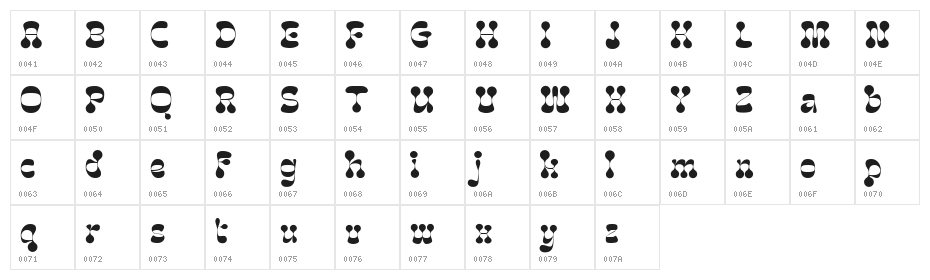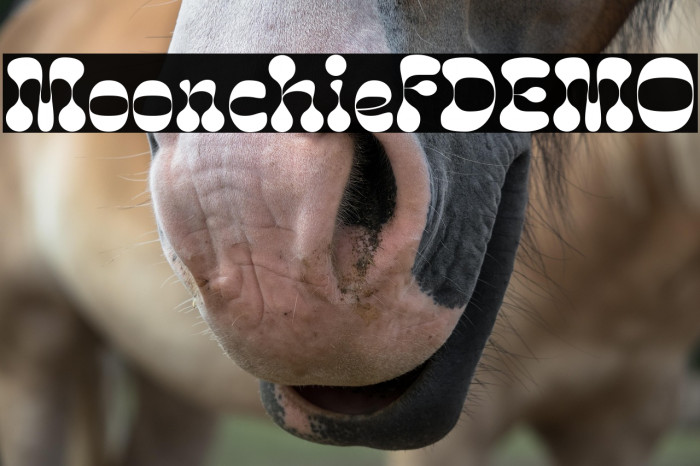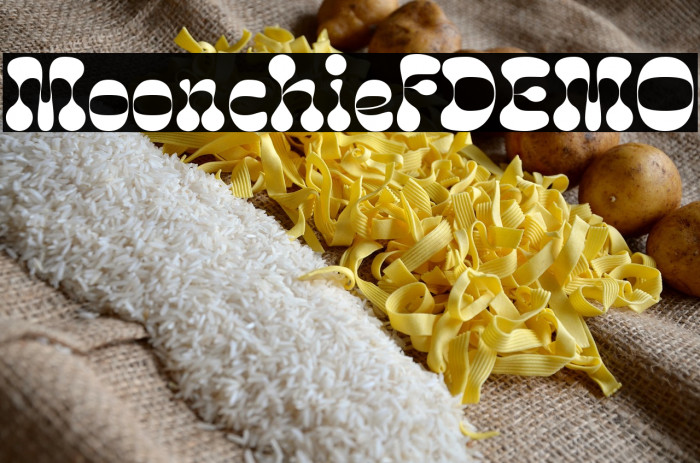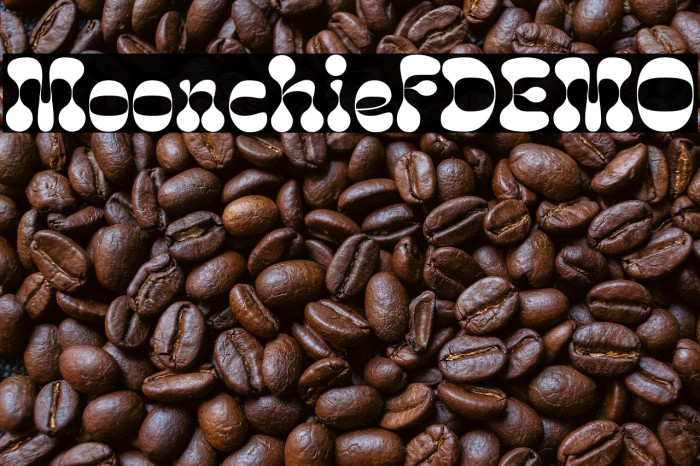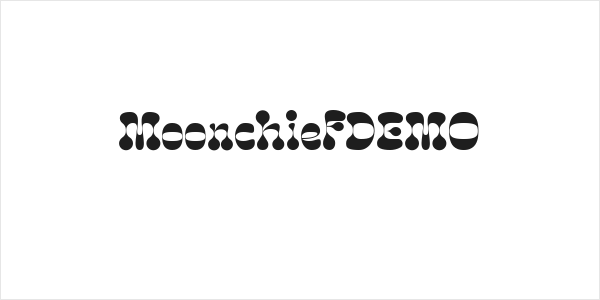
MoonchiefDEMO Font
MoonchiefDEMO Description
This font features a bold and playful design with a unique bubble-like appearance. The characters are rounded and interconnected, creating a sense of fluidity and movement. The bold strokes and high contrast between the thick and thin parts of the letters give it a distinctive and eye-catching look. The font's whimsical style makes it suitable for creative and informal applications, where a fun and lively aesthetic is desired. Its decorative nature is emphasized by the exaggerated curves and loops, making it stand out in any design.
| Overall Style | Playful, Decorative |
| Use Case | Logos, Posters, Creative projects |